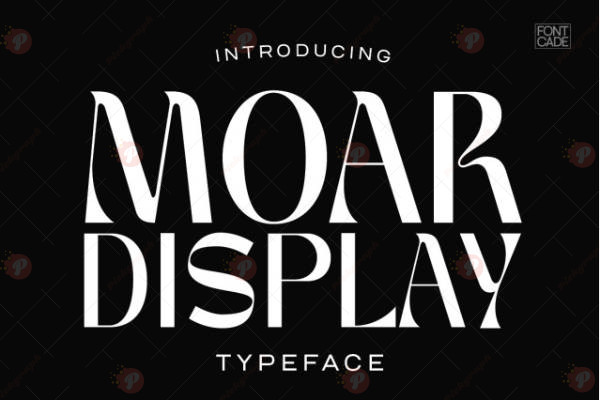
The Moar Display Free Font is a bold and modern display typeface, perfect for headlines, posters, banners, logos, branding, and display typography. Its strong and stylish design ensures your creations grab attention and make an impact.
Ideal for digital and print projects, Moar Display Free adds confidence, clarity, and contemporary style to your creative work.
Style: Bold / Modern / Display Typeface
Perfect for: Headlines, Posters, Banners, Logos, Branding & Display Typography
Make your designs stand out with the bold and stylish Moar Display Free Font.